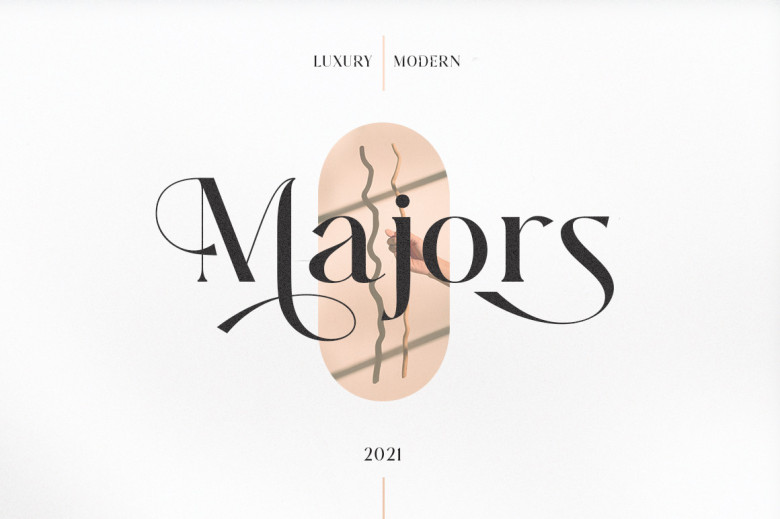
Majors Font
Majors is an elegant serif font. PUA encoded, so you have access to its impressive set of glyphs and ligatures easily! Include it in your designs – you’ll love how your work turns out!
Majors Serif Font